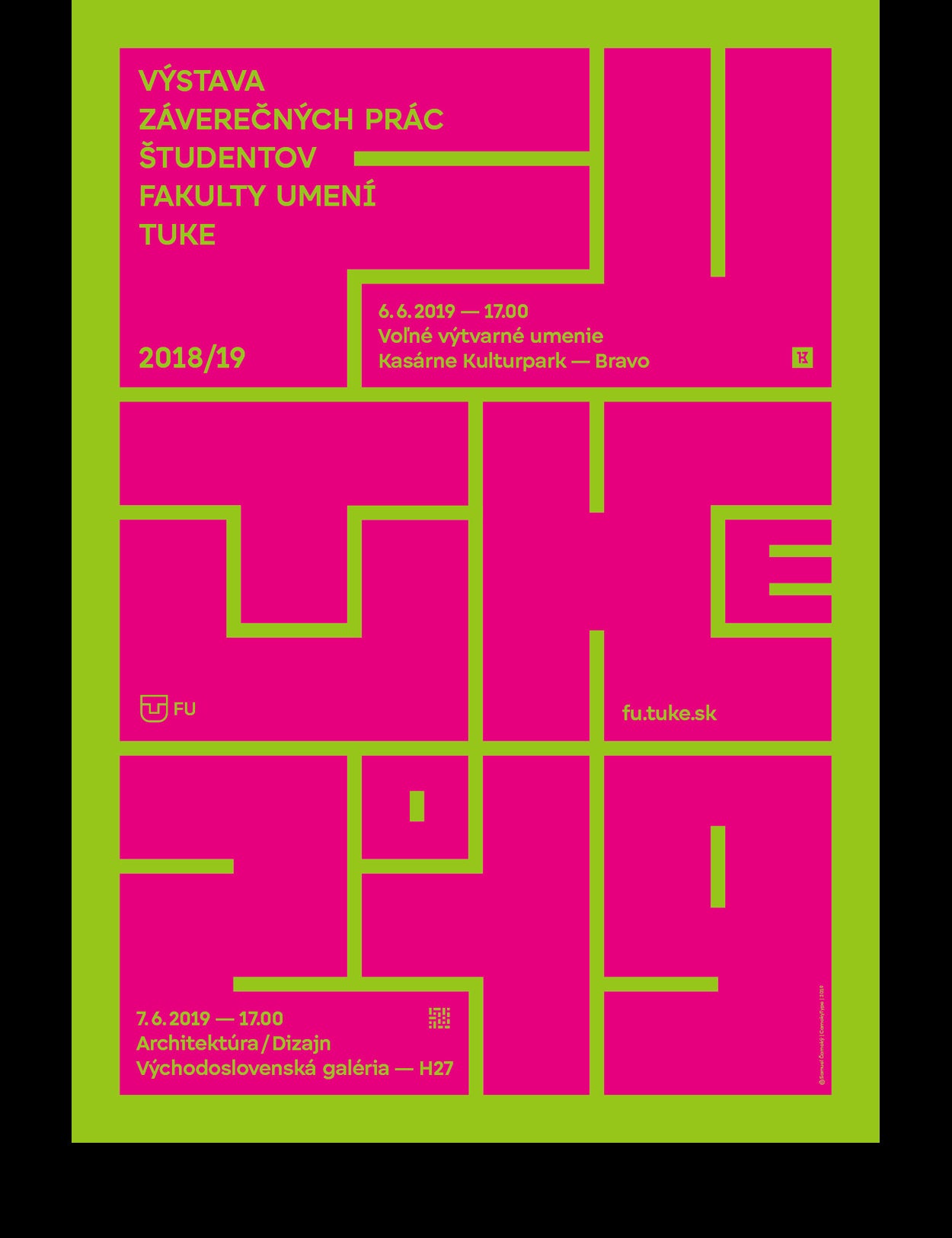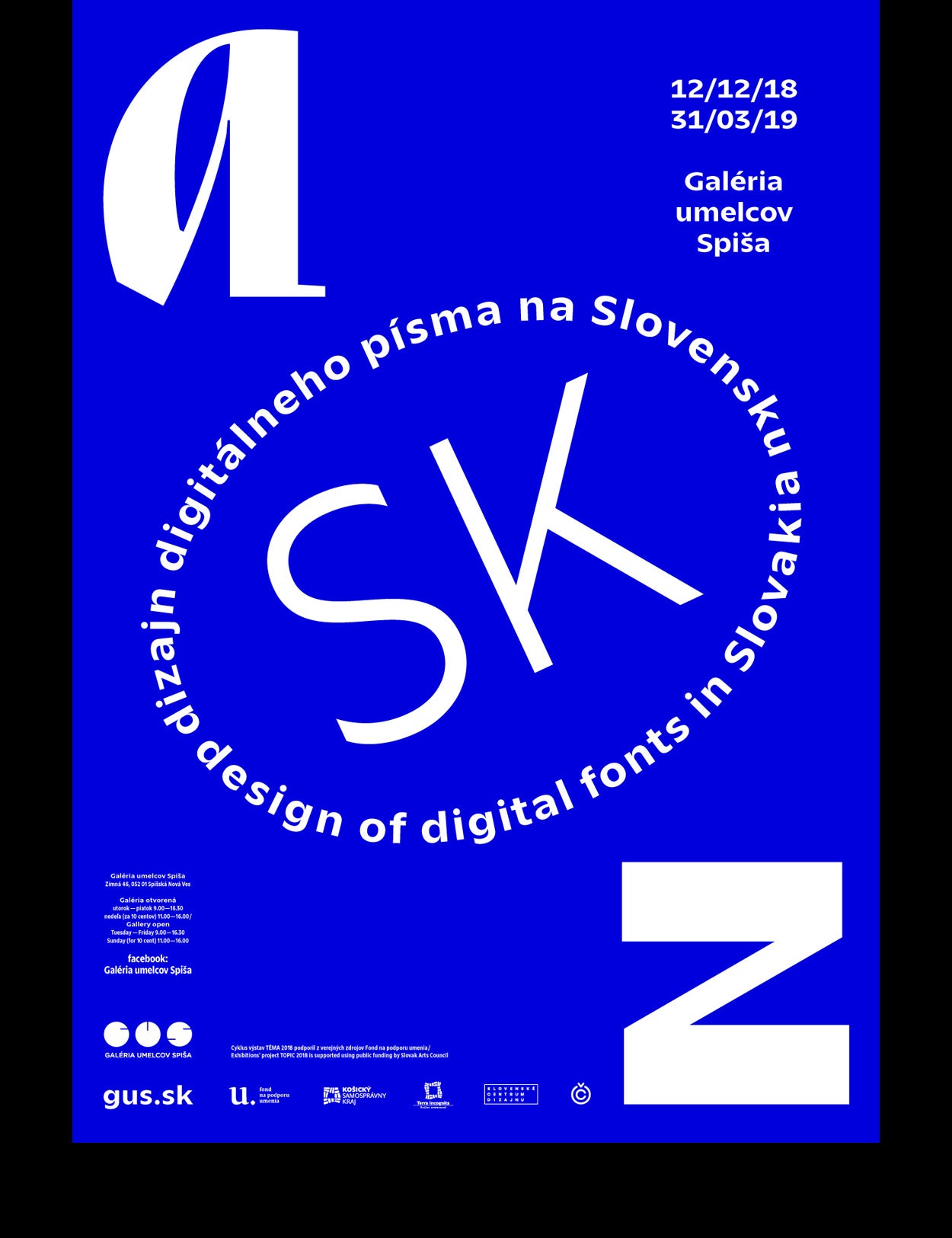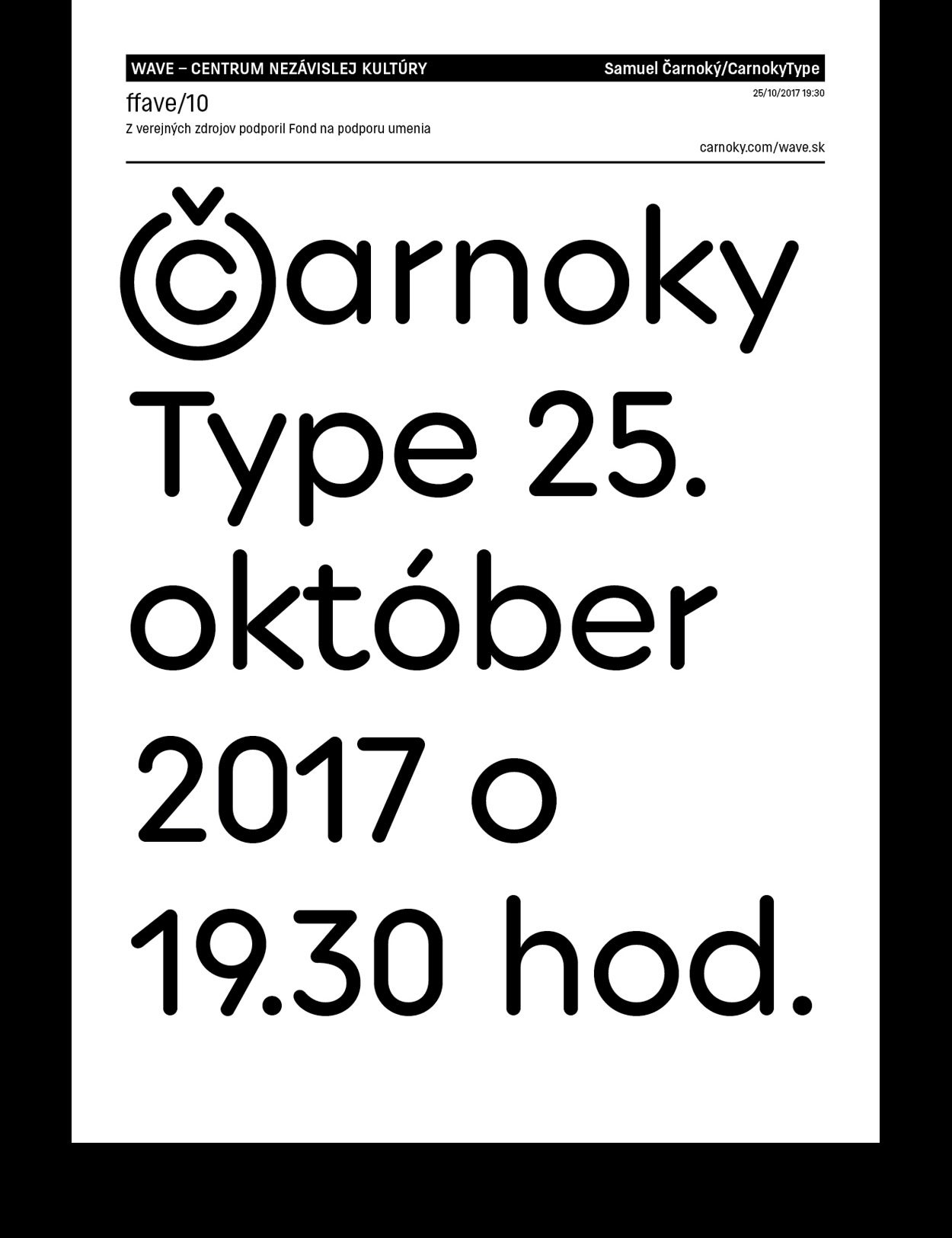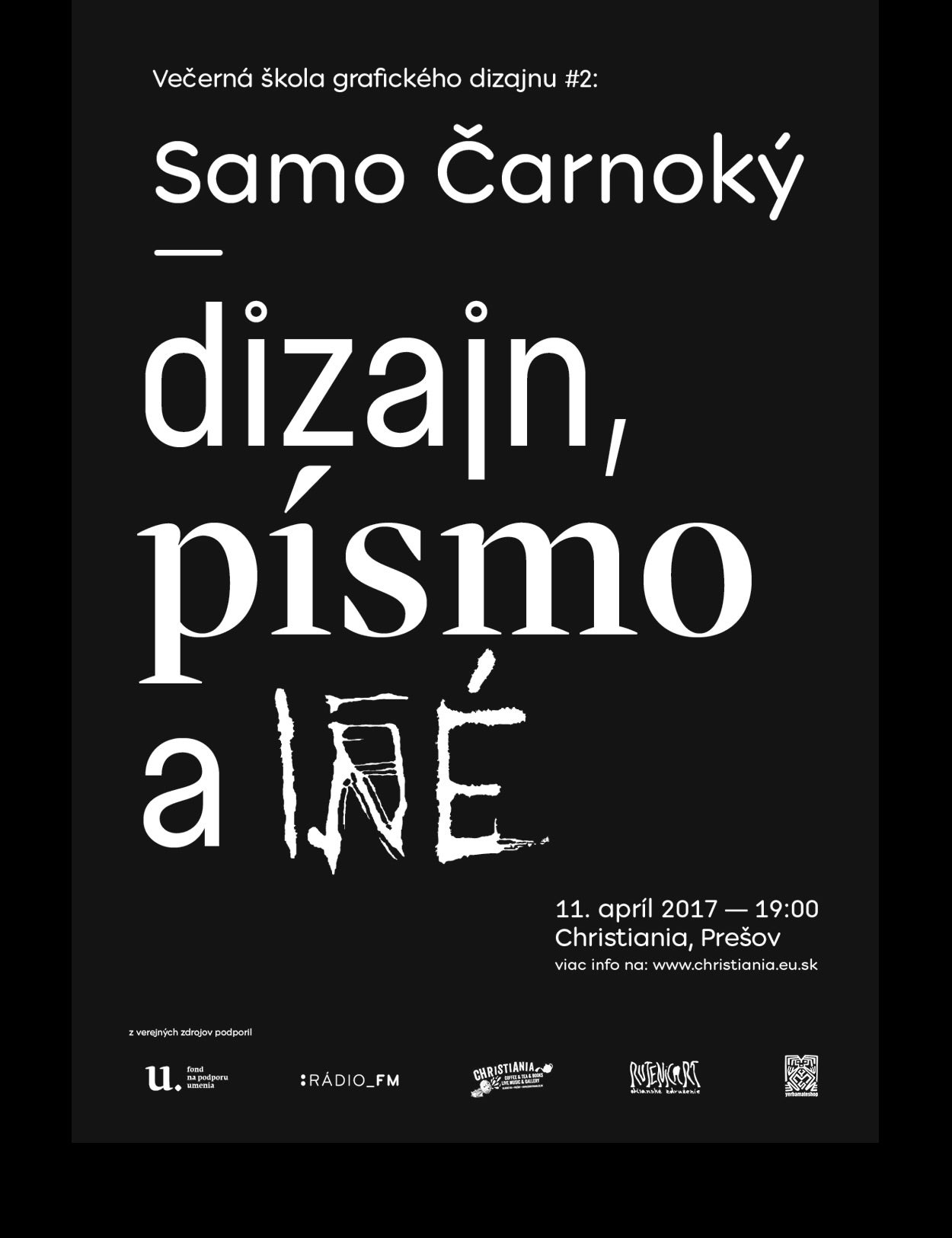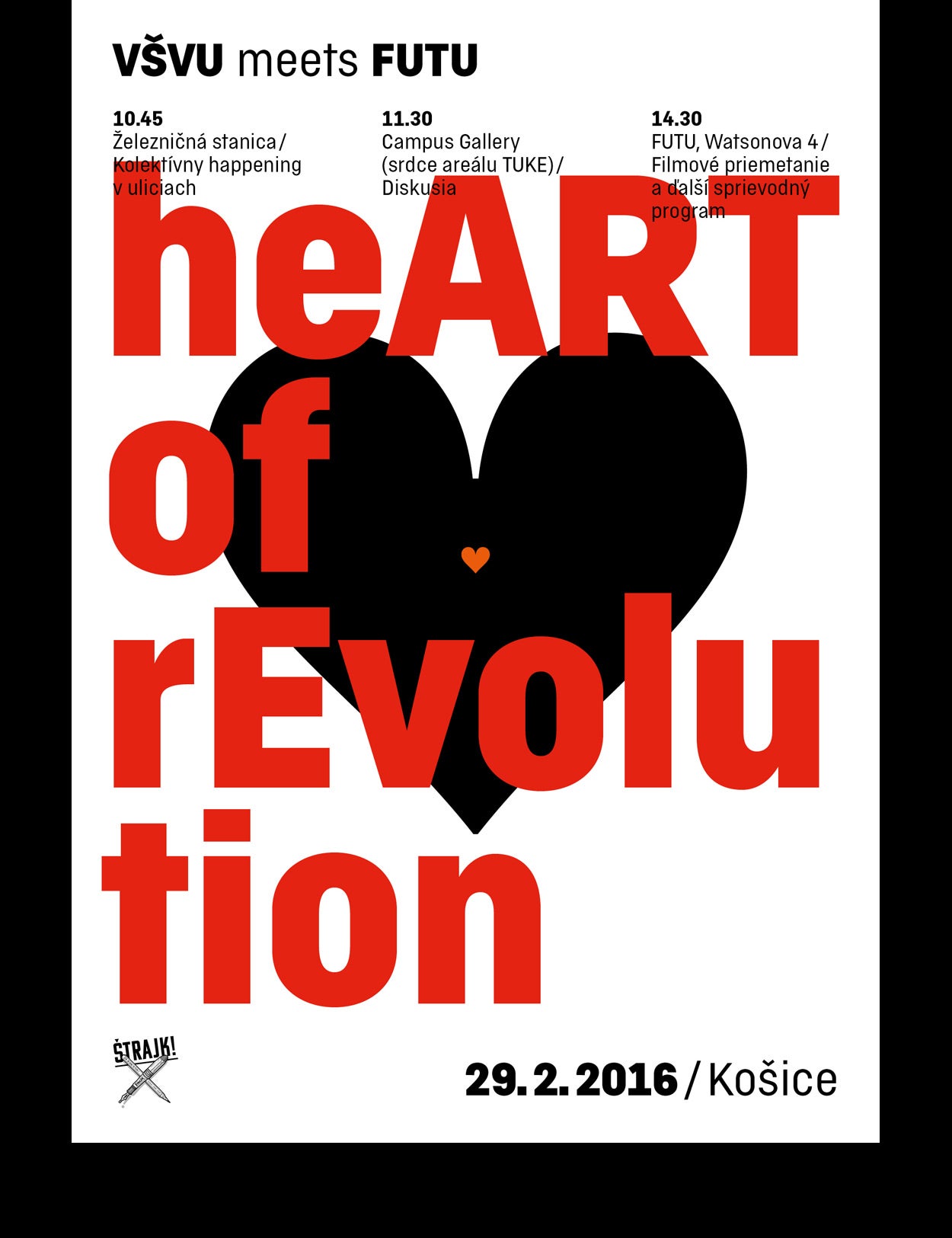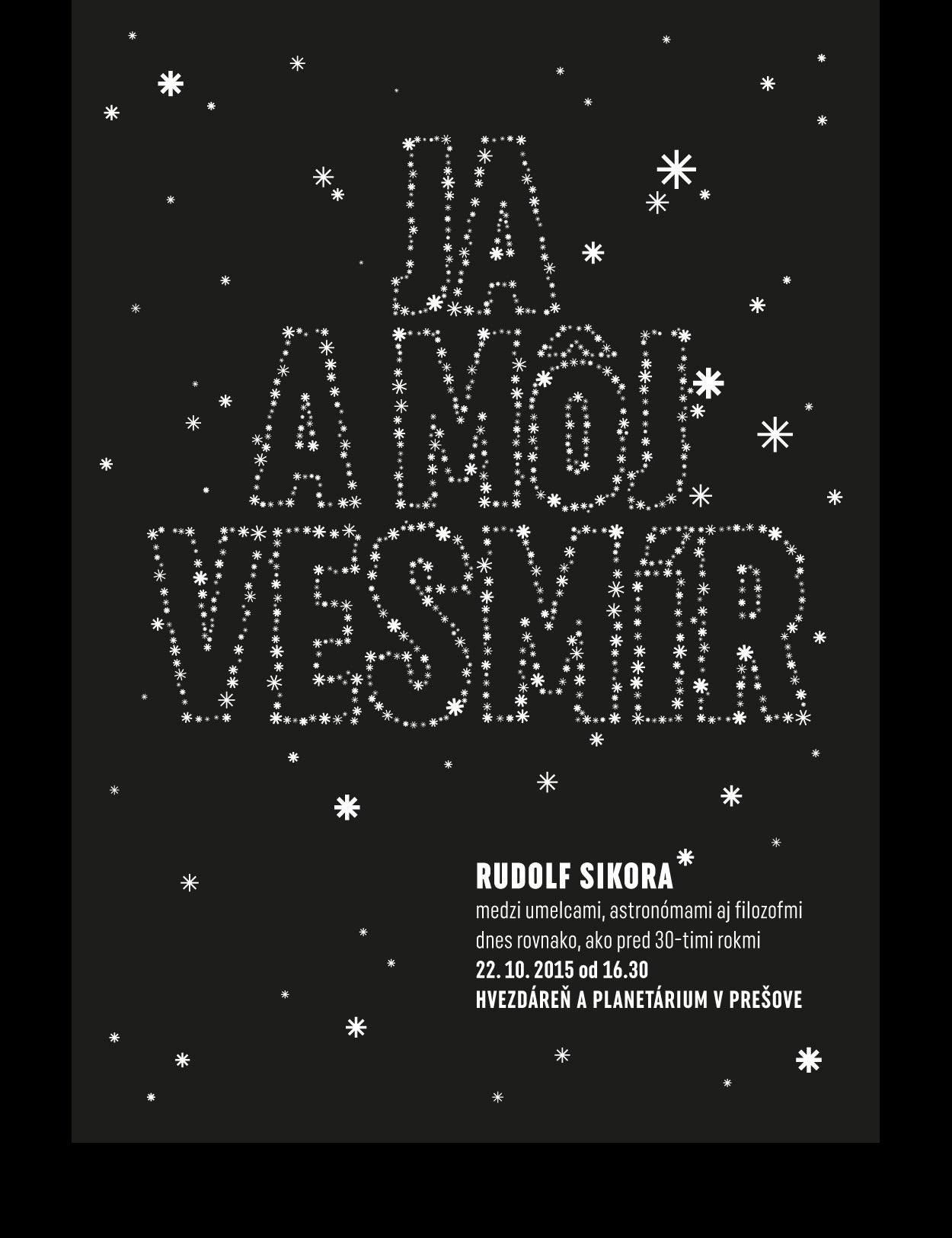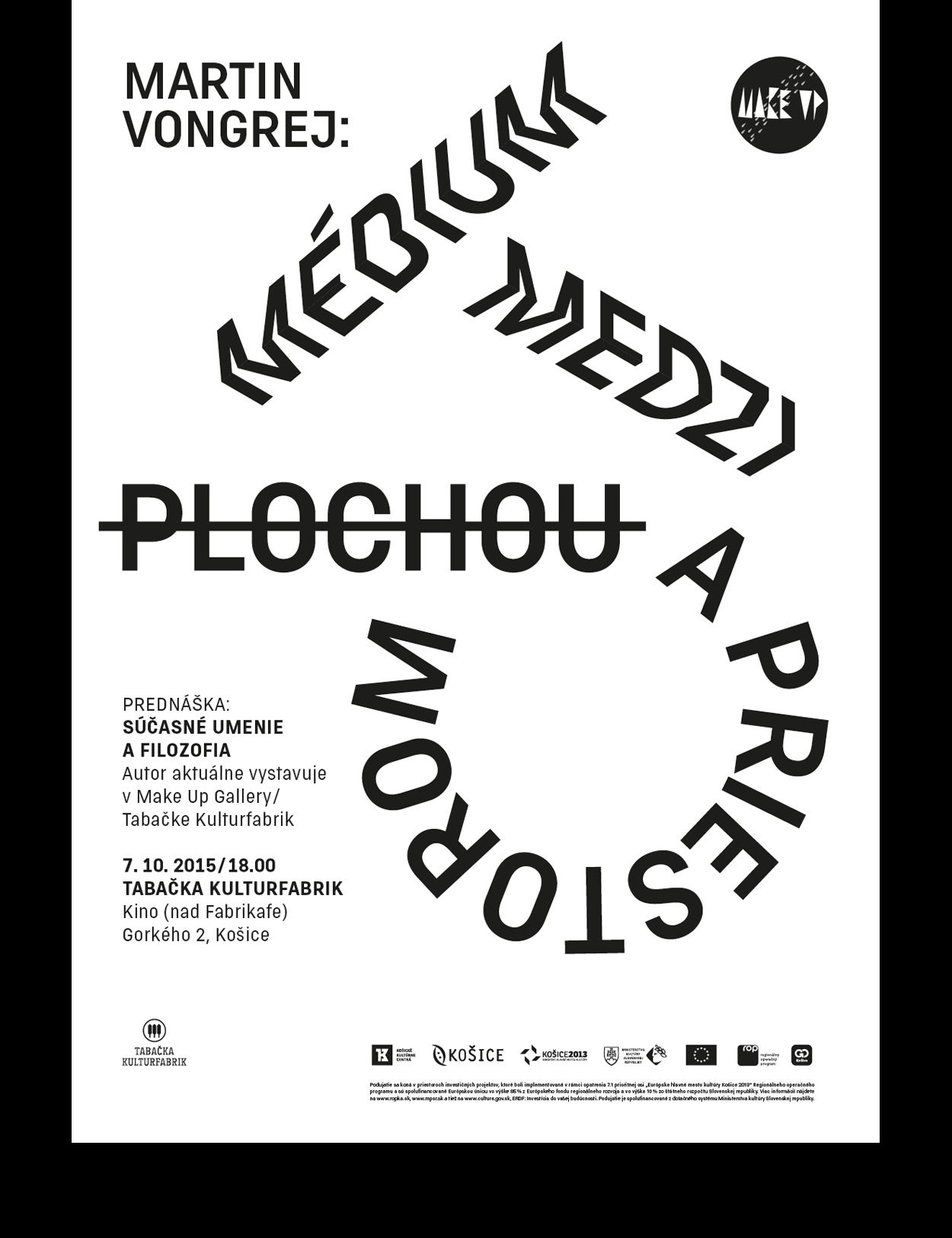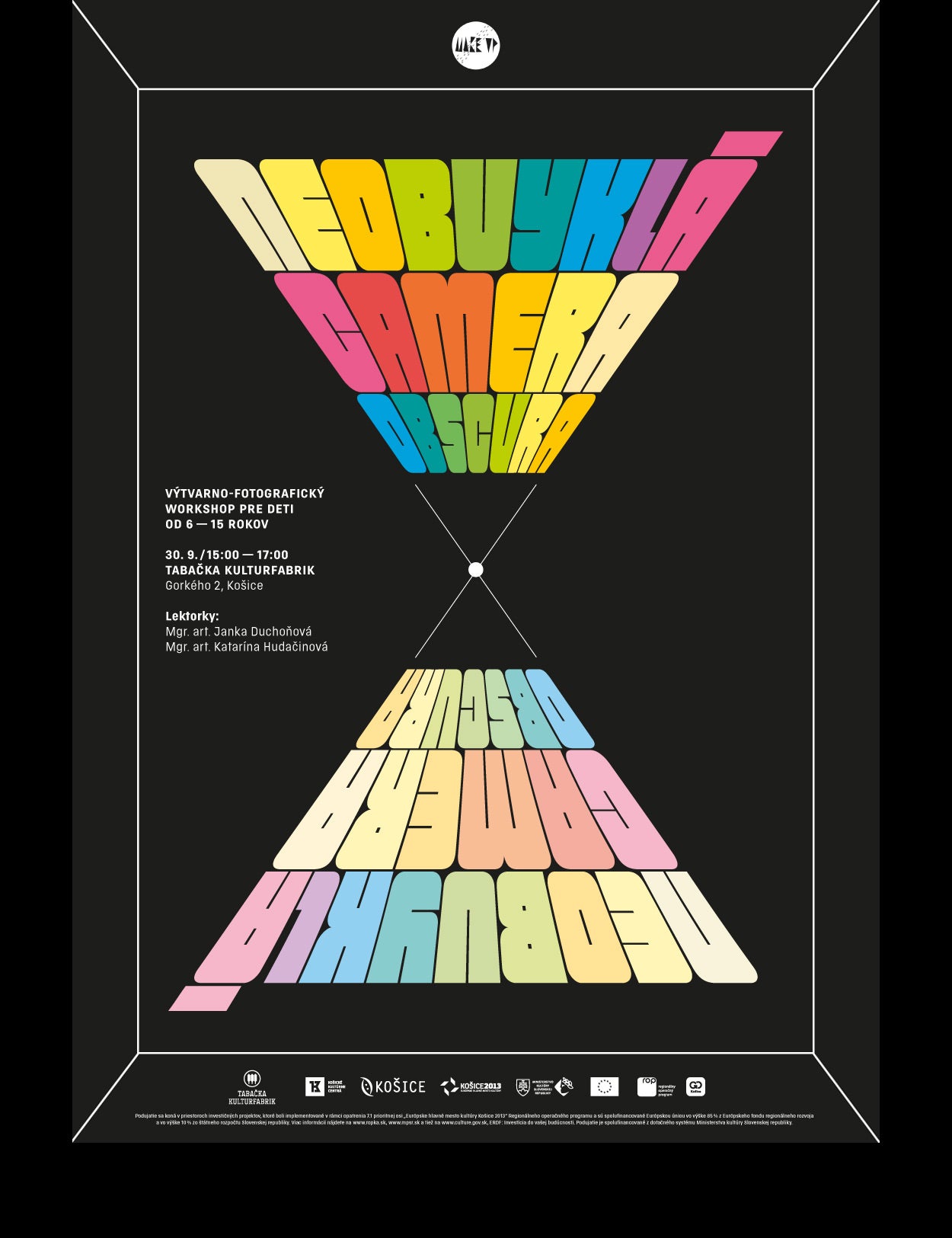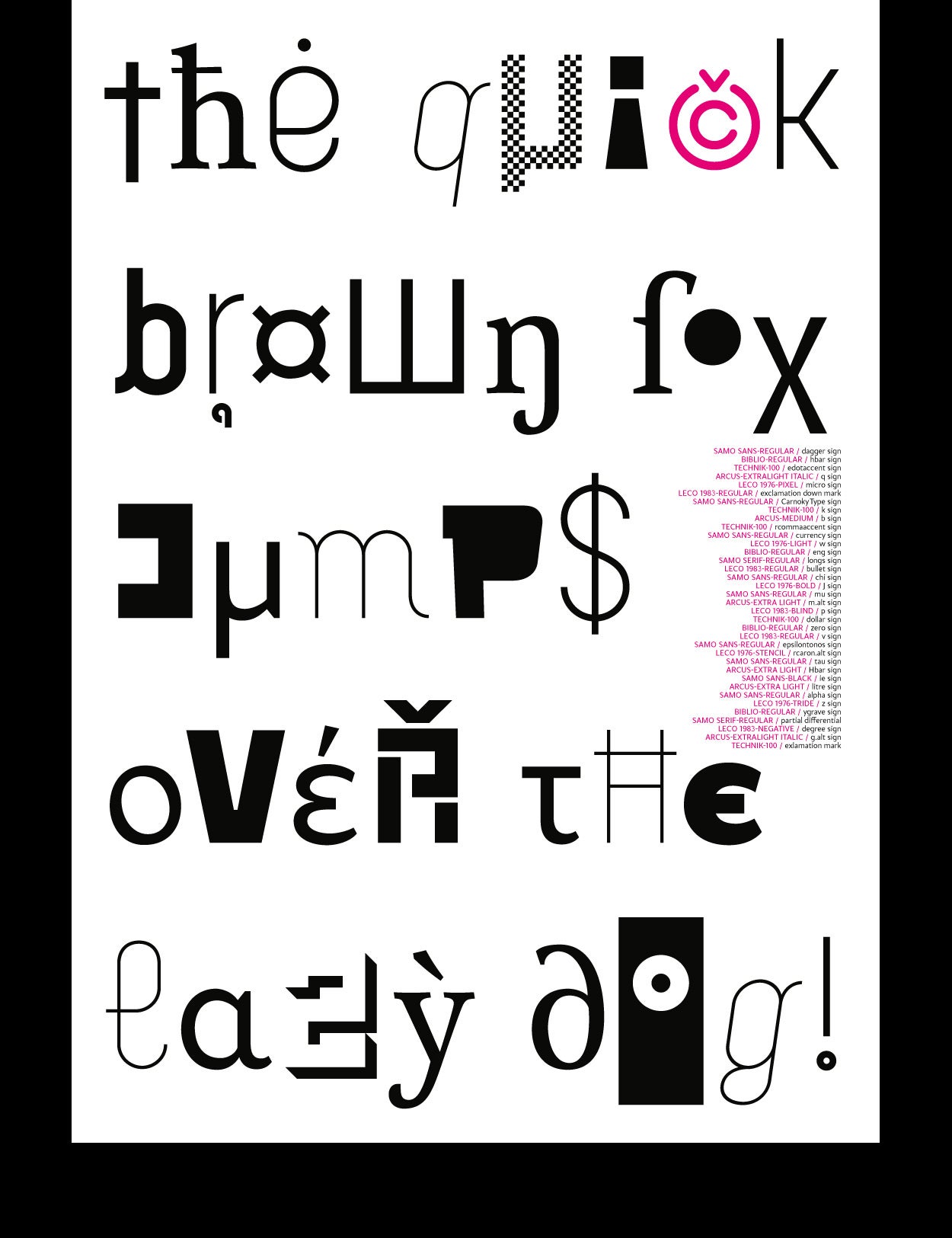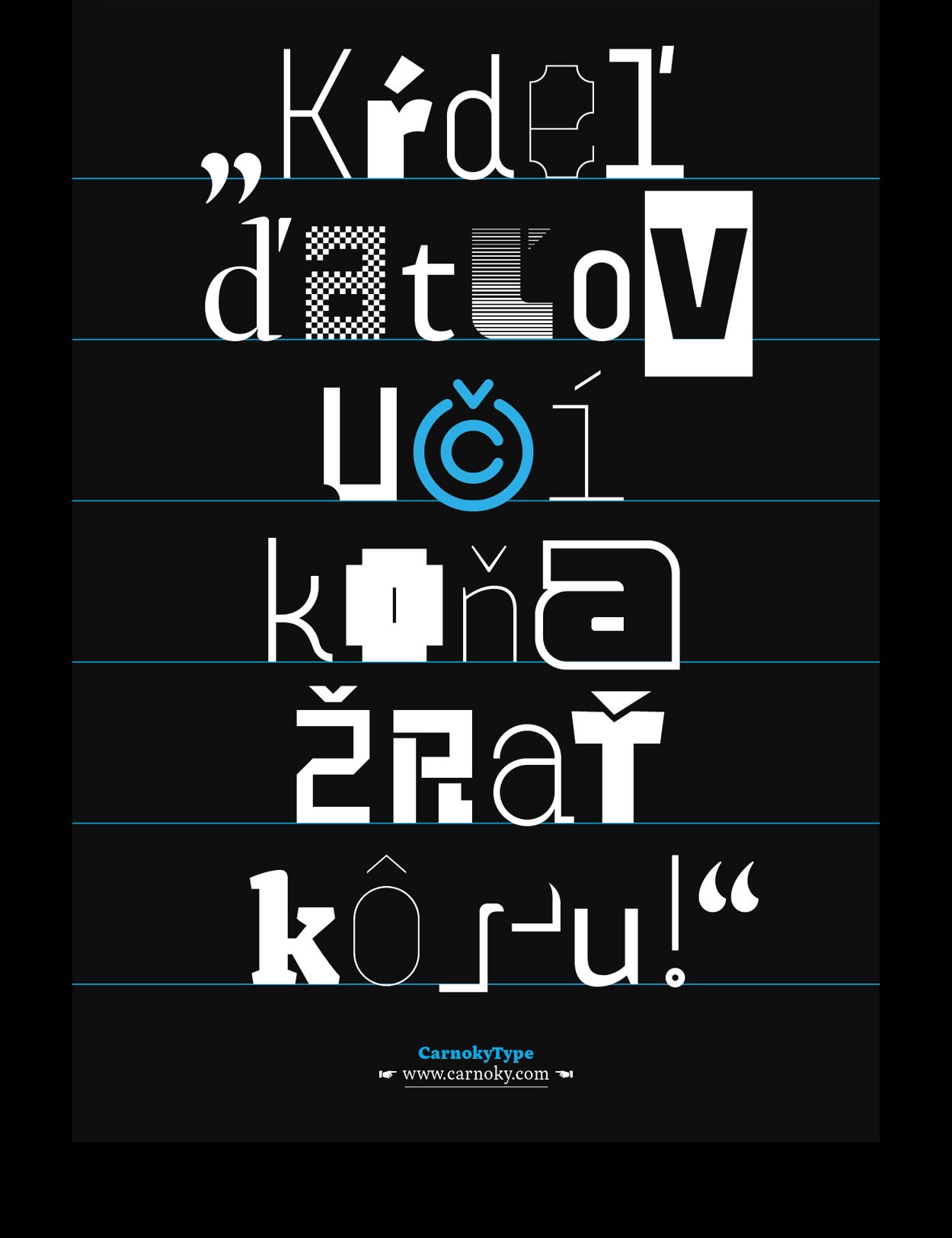
Typo posters
Selection of posters created for various institutions and events between the years 2010 — 2018. Minimalistic design with the emphasis on typography. Typically, my own and custom typefaces are used.